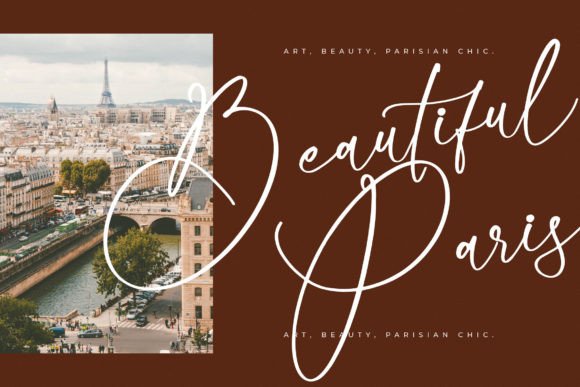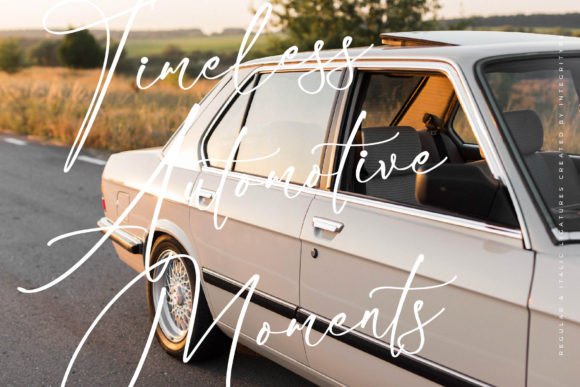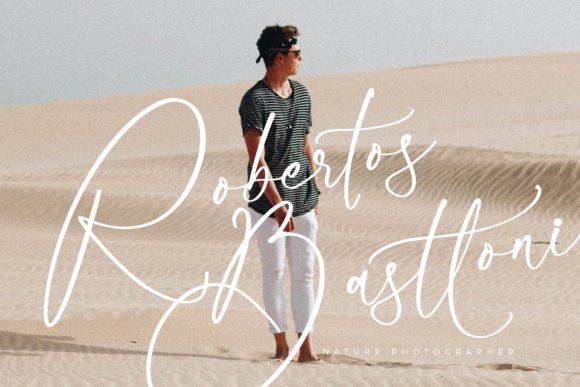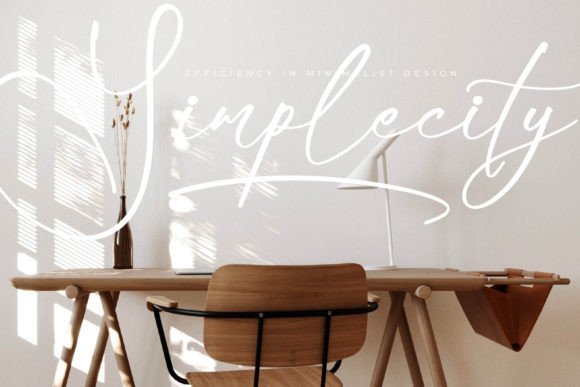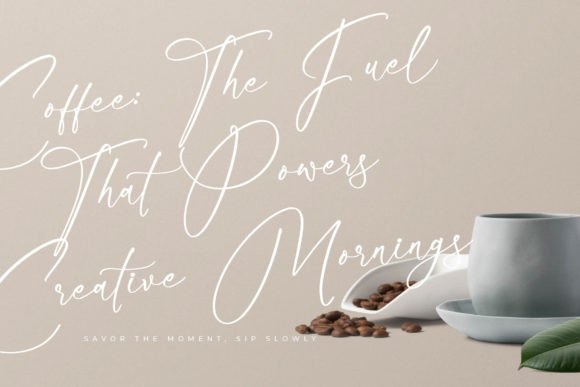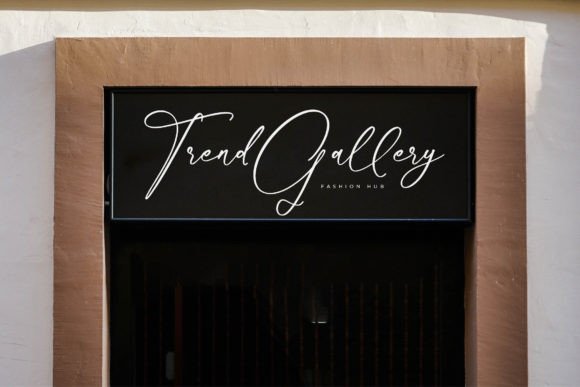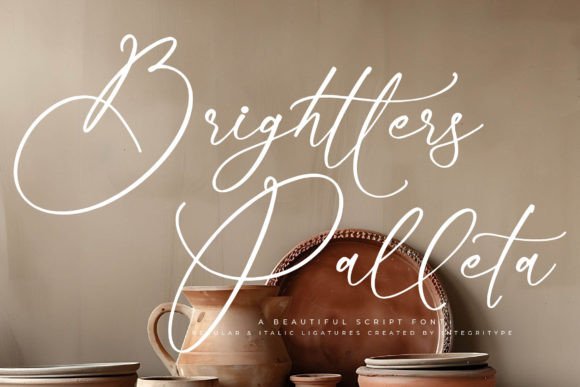
Introducing Brightters Palleta Font: Elevate Your Designs with Elegance
In the world of typography, a font can make all the difference in transforming a design from ordinary to extraordinary. For those seeking to add a touch of sophistication and elegance to their projects, Brightters Palleta Font is an exceptional choice. This beautiful script font is specifically designed to make your invitations, announcements, and event materials stand out, providing a personal touch to special occasions such as galas, parties, and celebrations.
What Makes Brightters Palleta Font Special?
Brightters Palleta Font is crafted with meticulous attention to detail, offering a unique blend of classic elegance and modern flair. Its script style is fluid and graceful, making it perfect for a variety of applications, from formal events to more casual gatherings. The font’s design ensures readability while maintaining a high level of aesthetic appeal, making your text not only easy to read but also a joy to look at.
Uses of Brightters Palleta Font
The versatility of Brightters Palleta Font makes it suitable for a wide range of design projects. Here are some of the most popular uses:
- Invitations: Whether you’re planning a wedding, birthday party, or corporate event, Brightters Palleta Font adds a touch of class to your invitations, setting the tone for a memorable occasion.
- Announcements: From grand openings to special promotions, this font helps you create announcements that are both informative and visually appealing.
- Event Materials: Enhance your event branding with elegant font choices. Brightters Palleta Font is perfect for programs, agendas, and thank-you cards, ensuring consistency and style throughout your event materials.
- Social Media Graphics: Stand out on social media with beautifully designed graphics. Brightters Palleta Font can be used to create engaging posts, stories, and banners that capture attention and convey your message with elegance.
Why Choose Brightters Palleta Font?
There are several reasons why Brightters Palleta Font should be your go-to choice for your typography needs:
- Elegance: The font exudes elegance, making it perfect for designs that require a sophisticated look.
- Versatility: Its script style is versatile enough to be used in various design projects, from digital to print.
- Readability: Despite its elegant and cursive nature, Brightters Palleta Font maintains high readability, ensuring your message is conveyed clearly.
- Uniqueness: The font’s unique design ensures that your designs stand out from the crowd, making them more memorable.
Tips for Using Brightters Palleta Font
To get the most out of Brightters Palleta Font, consider the following tips:
- Pair with Complementary Fonts: For optimal results, pair Brightters Palleta Font with simple, sans-serif fonts to create a balanced design.
- Adjust Size and Color: Experiment with different sizes and colors to highlight key information and create visual hierarchy in your designs.
- Use in Combination with Images: Brightters Palleta Font works beautifully with images. Use it to overlay text on photos or illustrations for a more dynamic look.
Brightters Palleta Font is a stunning script font that can elevate your designs to new heights of elegance and sophistication. Whether you’re a professional designer or a crafty DIY enthusiast, this font offers the perfect blend of style, versatility, and readability. By incorporating Brightters Palleta Font into your projects, you’re sure to create designs that are not only beautiful but also memorable. So why wait? Explore the possibilities with Brightters Palleta Font today and make your designs shine with elegance.